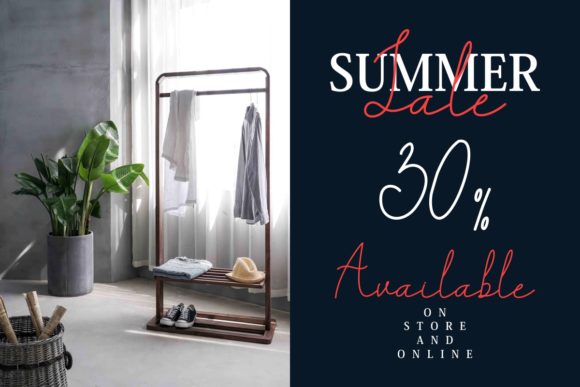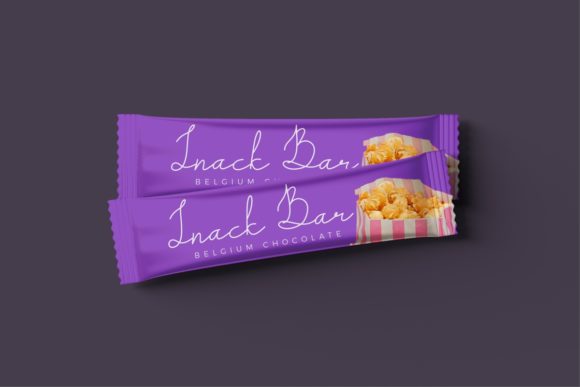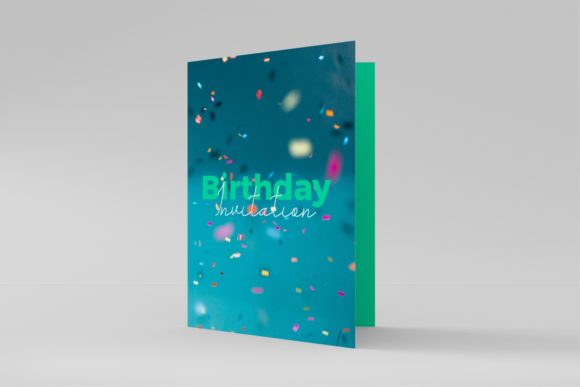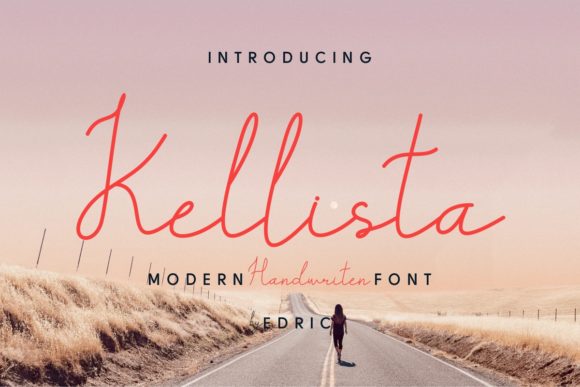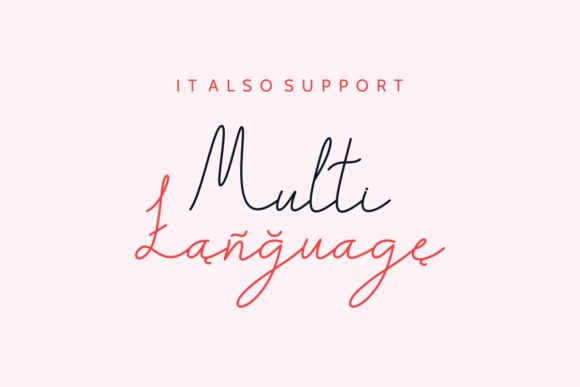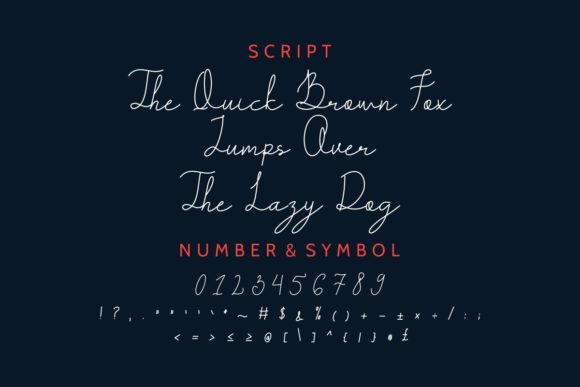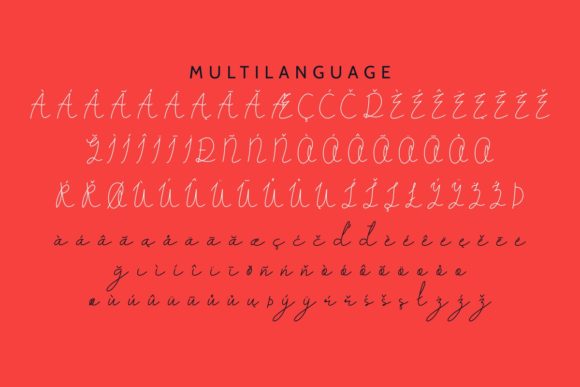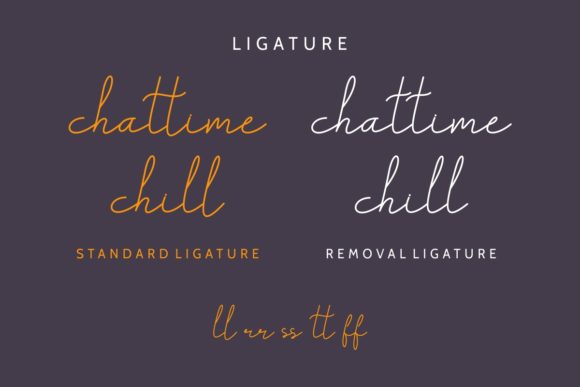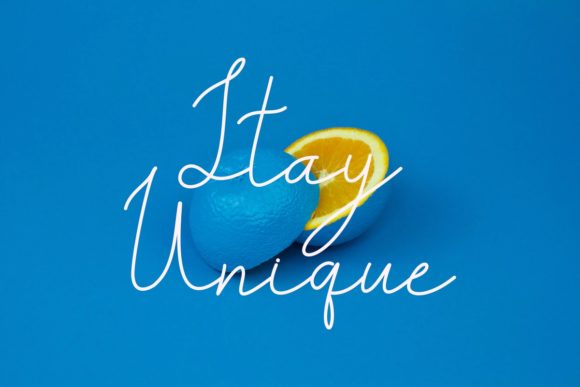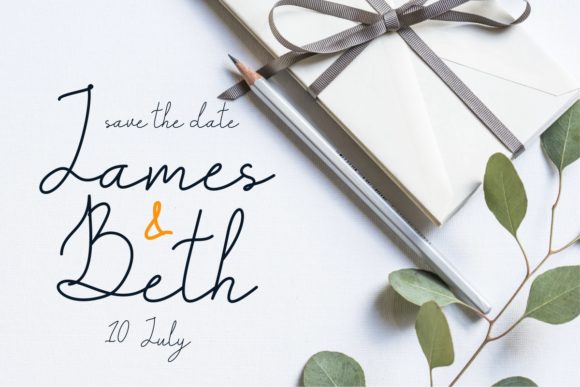
HomeScript FontsKellista Font Script Fonts Kellista Font FacebookXPinterestWhatsApp Kellista Font Poster 2 Kellista Font Poster 3 Kellista Font Poster 4 Kellista Font Poster 5 Kellista Font Poster 6 Kellista Font Poster 7 Kellista Font Poster 8 Kellista Font Poster 9 Kellista Font Poster 10 Kellista Font Poster 11 Kellista Font Poster 12 About Kellista Font Style meets elegance: Kellista is a unique and playful monoline script for the ages! DOWNLOAD ON CREATIVE FABRICAThis font is sold and delivered by Creative Fabrica. Font Canyon may earn a commission if you buy through this link. People also explored Valentines Kids Font Recalate Font Sweet Strawberry Font Phenom Extra Bold Font Buttersoy Font Derive Font Cute Animal Font Selitta Font Chic Italic Font 316 0 TagsKellista Font Previous articleSilver Quality FontNext articleBelynti Font LEAVE A REPLY Cancel reply Comment: Please enter your comment! Name:* Please enter your name here Email:* You have entered an incorrect email address! Please enter your email address here Website: Save my name, email, and website in this browser for the next time I comment. Personal Use Free Good Luck Personal Use Free Read more about this font Kitchen Blue Personal Use Free Read more about this font Gardening Personal Use Free Read more about this font Angelia Personal Use Free Read more about this font BLOG 5 Fonts That Will Dominate Design Trends in 2026 5 Fonts for 2026 That Will Dominate Design Trends Typography plays a critical role in visual communication, and as we look ahead to 2026, it’s... Transform Your Website: Elevate Your Typography with 7 Best Web Font Generators Exploring Font Trends The 10 Best Handwriting Fonts to Add Personality to Your Designs